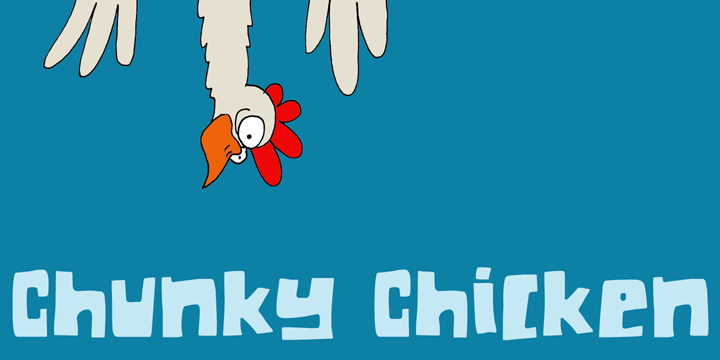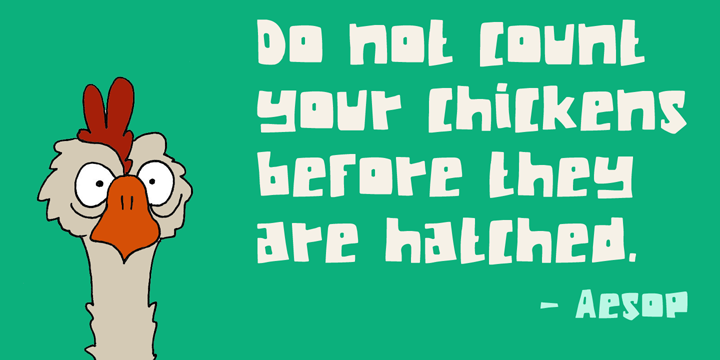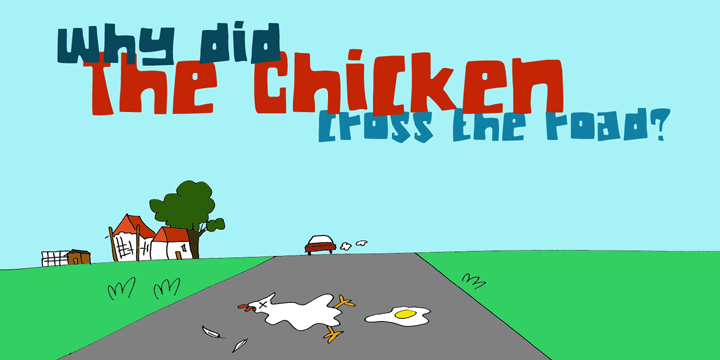
Chunky Chicken is a comic and kids font published by Hanoded.
Chunky Chicken is a fat, weird, funny and unique font. It was named in honor of my five chickens, who, despite the snow and freezing temperatures, keep laying eggs every day. Chunky Chicken is a headline font, ideal for books and posters and comes with a full range of diacritics.